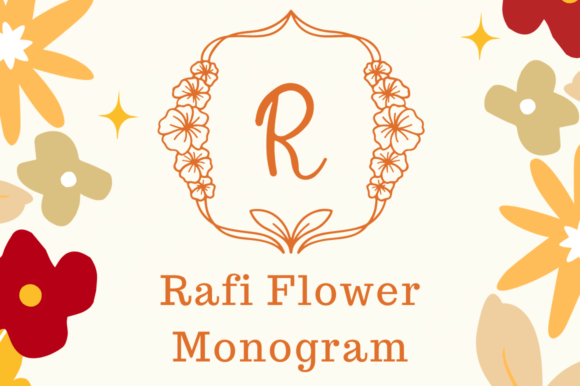
Step into a world of captivating charm with the Rafi Flower Monogram Font, a decorative masterpiece crafted to add a touch of elegance and warmth to your creative endeavors. This enchanting font, brought to life by the talented hi.letthastudio, is a sweet and adorable companion for all your personal and professional projects.
With its delicate curves and playful flourishes, the Rafi Flower Monogram Font exudes a sense of romance and femininity. Its intricate details, reminiscent of blooming flowers and flowing vines, will transform your designs into works of art. Whether you're creating wedding invitations, greeting cards, monogrammed mugs, or any project that calls for a lovely, romantic touch, this font is the perfect choice.
Unleash your creativity and let the Rafi Flower Monogram Font take you on a journey of artistic expression. Its versatility and charm will captivate your audience, leaving them with a lasting impression. Embrace the beauty of this decorative font and elevate your designs to new heights.
- Exquisitely designed decorative font
- Perfect for adding a romantic touch to your projects
- Ideal for wedding invitations, greeting cards, and monogrammed items
- Versatile and charming for a variety of creative applications